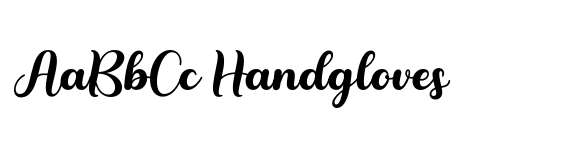
Balyona
by Ws Studio
The Balyona Font Family was designed by Wais Alqarni and published by Ws Studio. Balyona contains 1 styles. More about this family
Balyona is a beautiful light handwritten font with a unique feel and a stunning impact. It will add a luxury spark to any design project that you wish to create! This font is PUA encoded which means you can access all of the amazing glyphs and ligatures with ease!